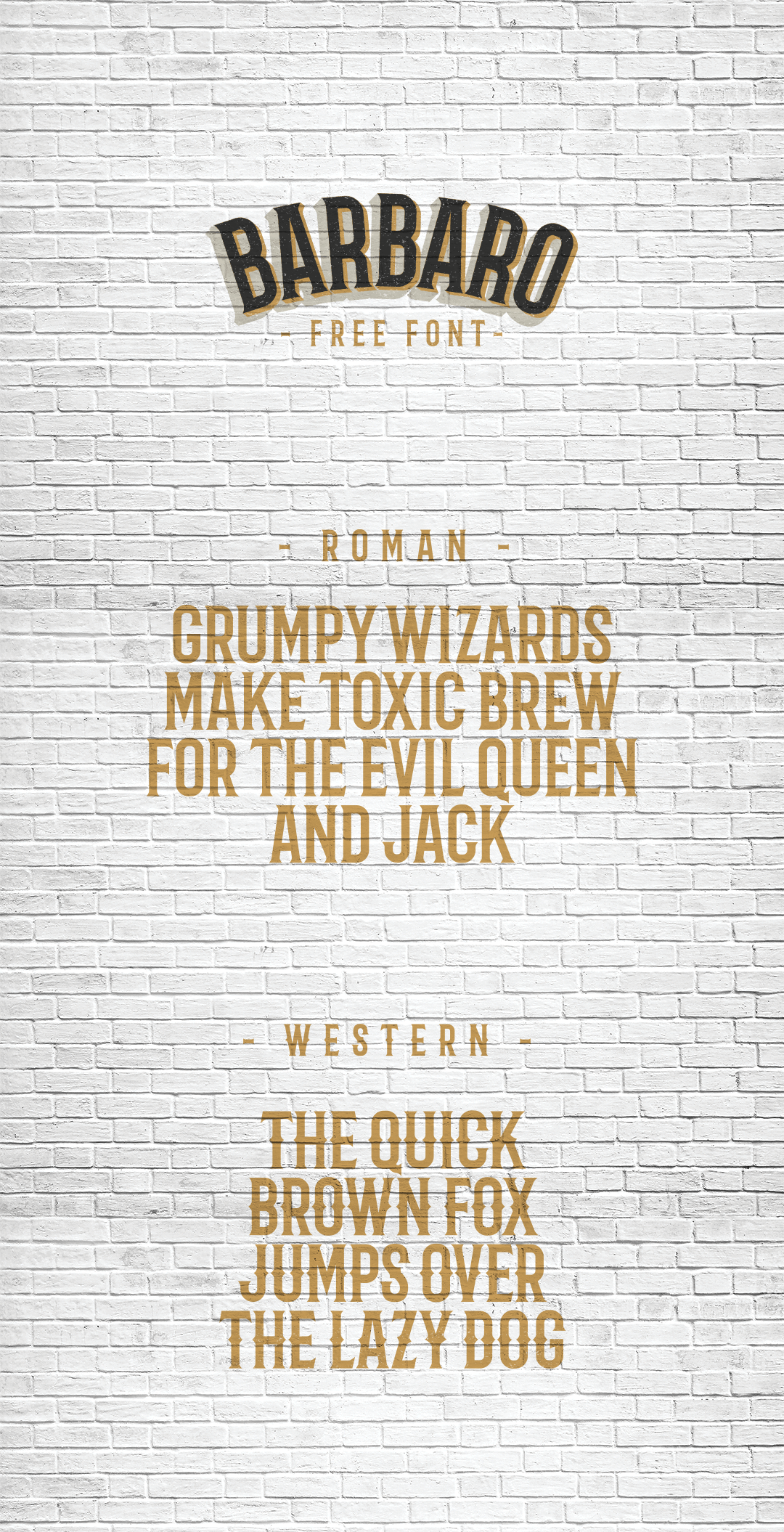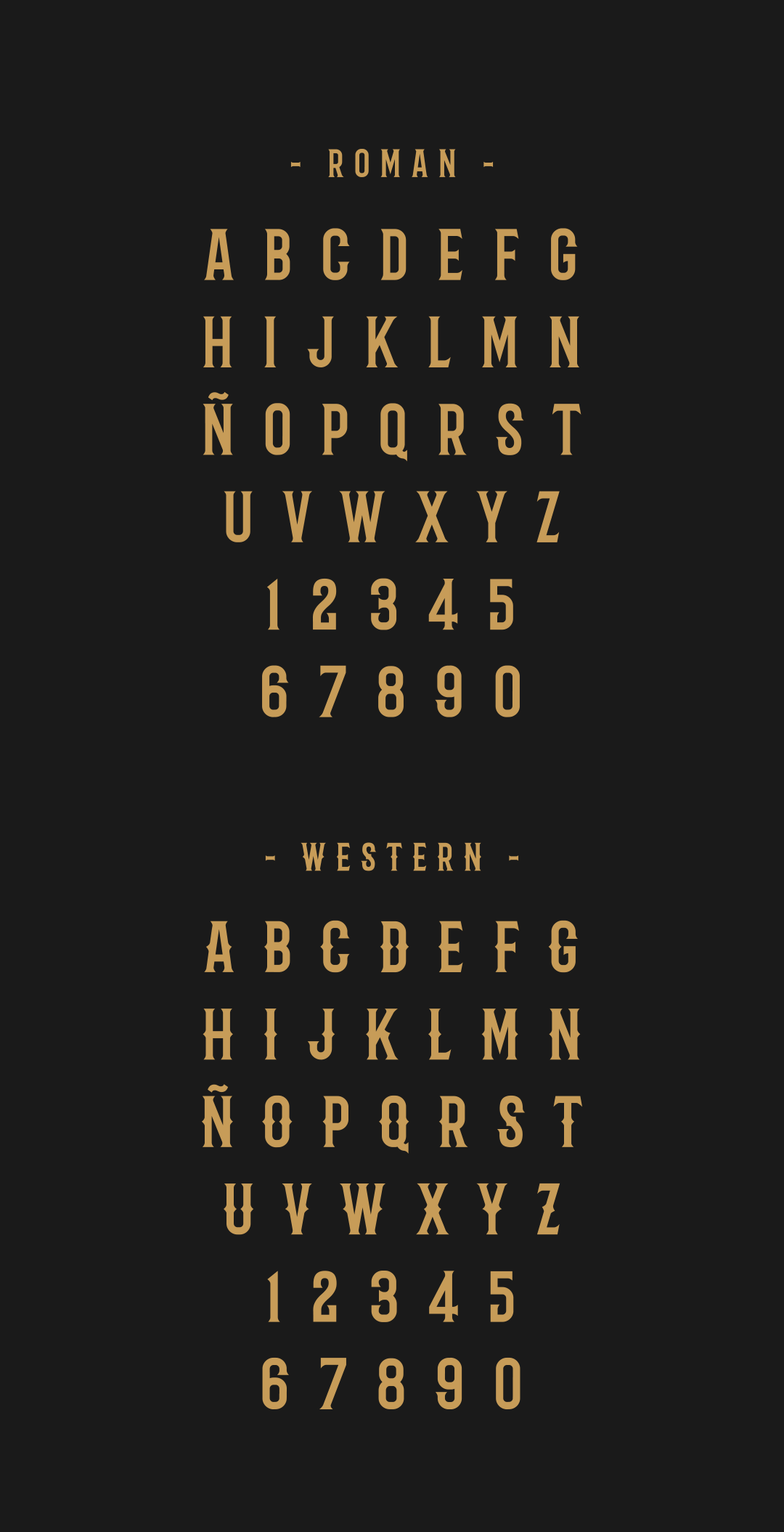
Barbaro free font
Barbaro free font is serif with two versions, roman and western, with a really cool look that take us to those old western movies titles the western version is really cool. The roman version is also suitable for other hipster moods. It’s free for personal and comercial use. Another must have.